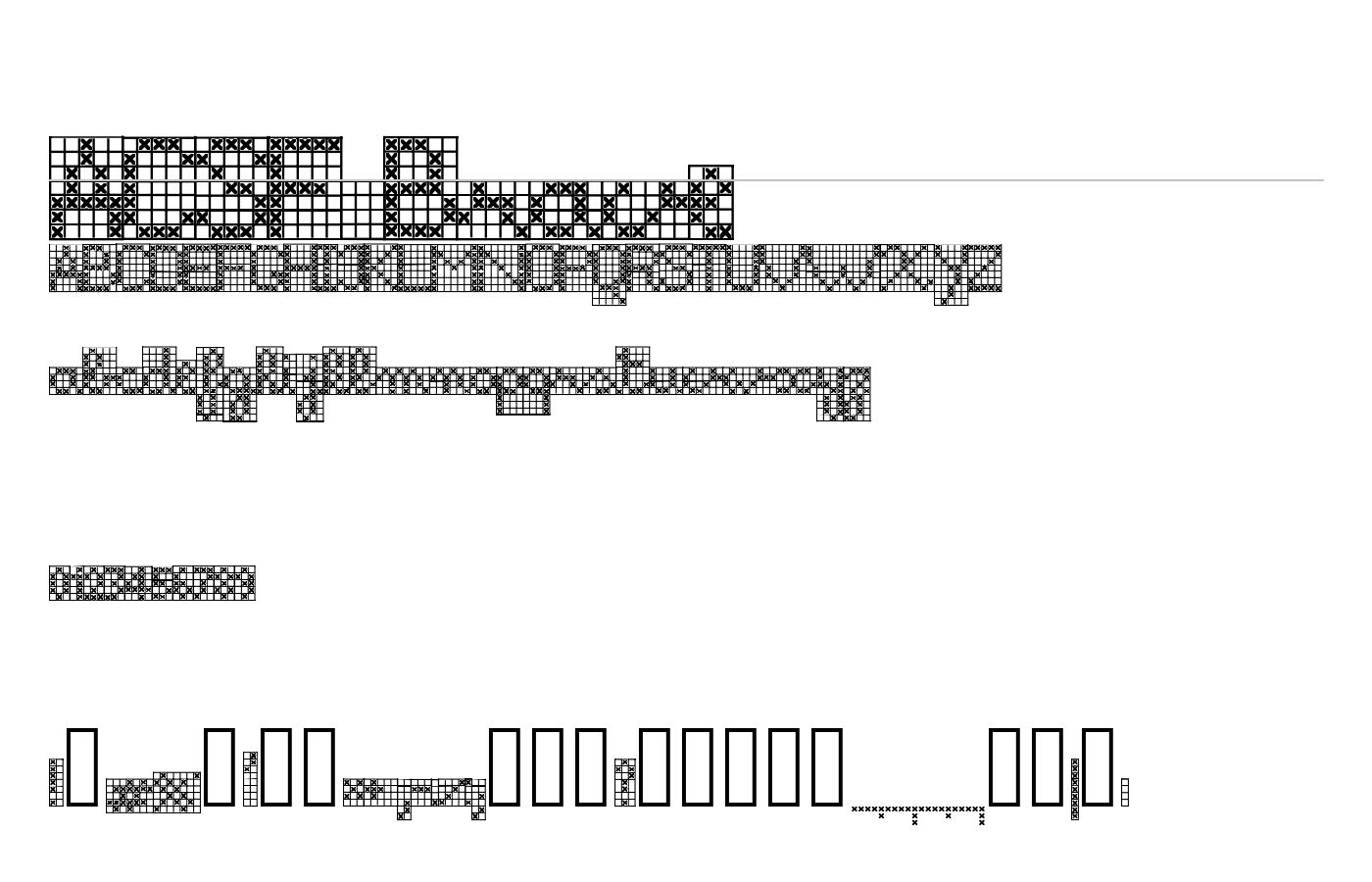
ACSF Brave is a monospace font with a pixelated, grid-based design that evokes a retro digital feel. Its consistent stroke weight and geometric letterforms make it ideal for coding, vintage computer interfaces, or any project seeking a nostalgic, tech-inspired aesthetic. The font works best in contexts where clarity and a unique, old-school atmosphere are desired.
ACSF Brave Font